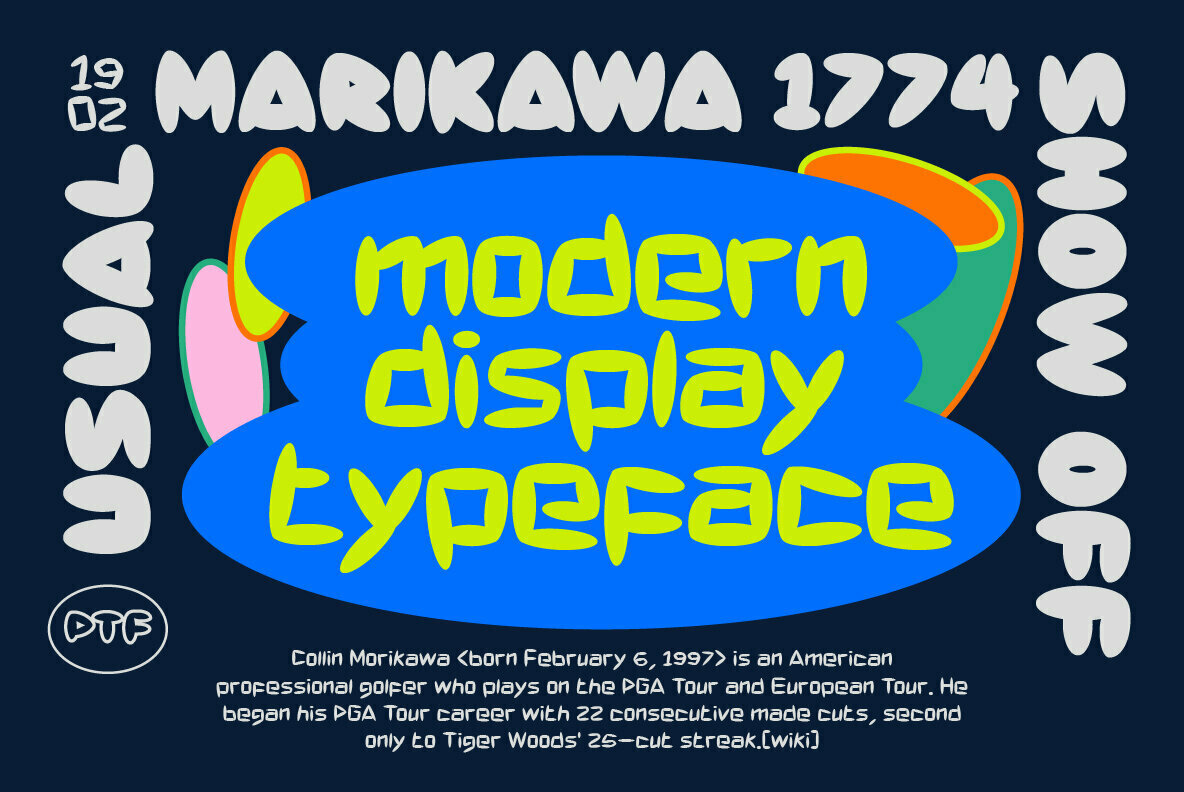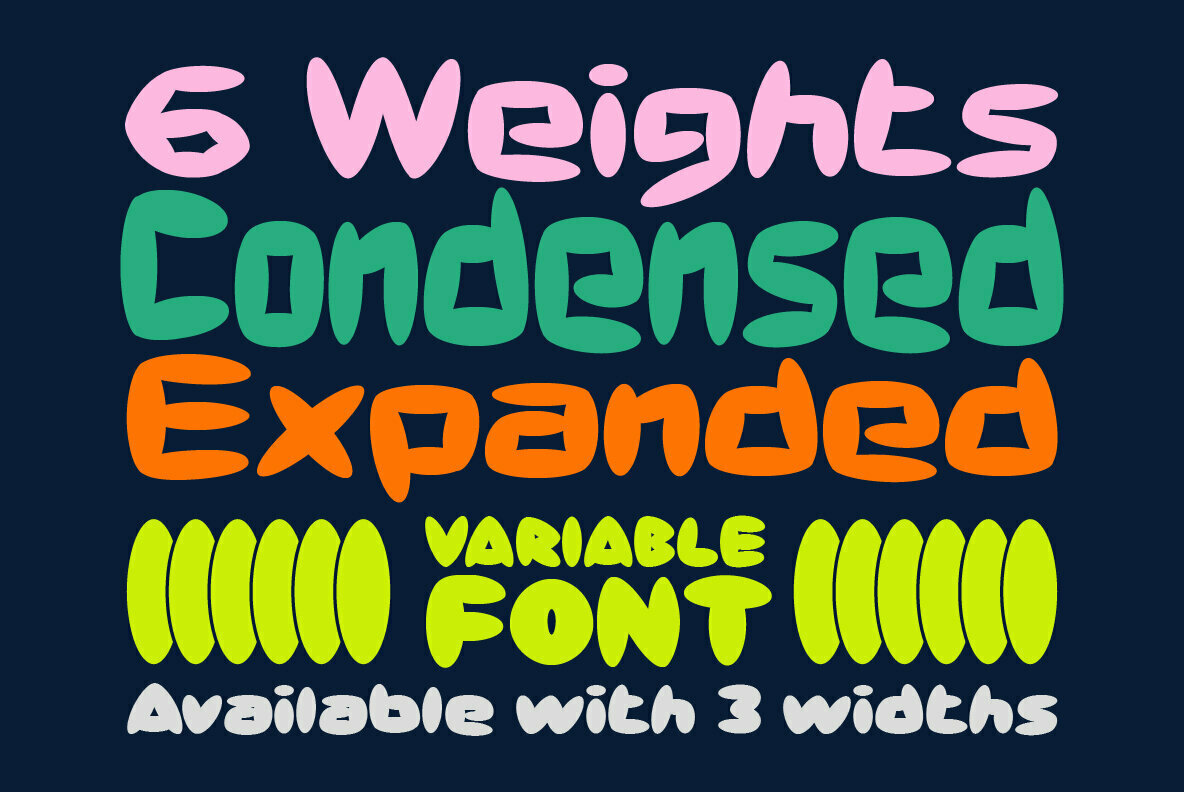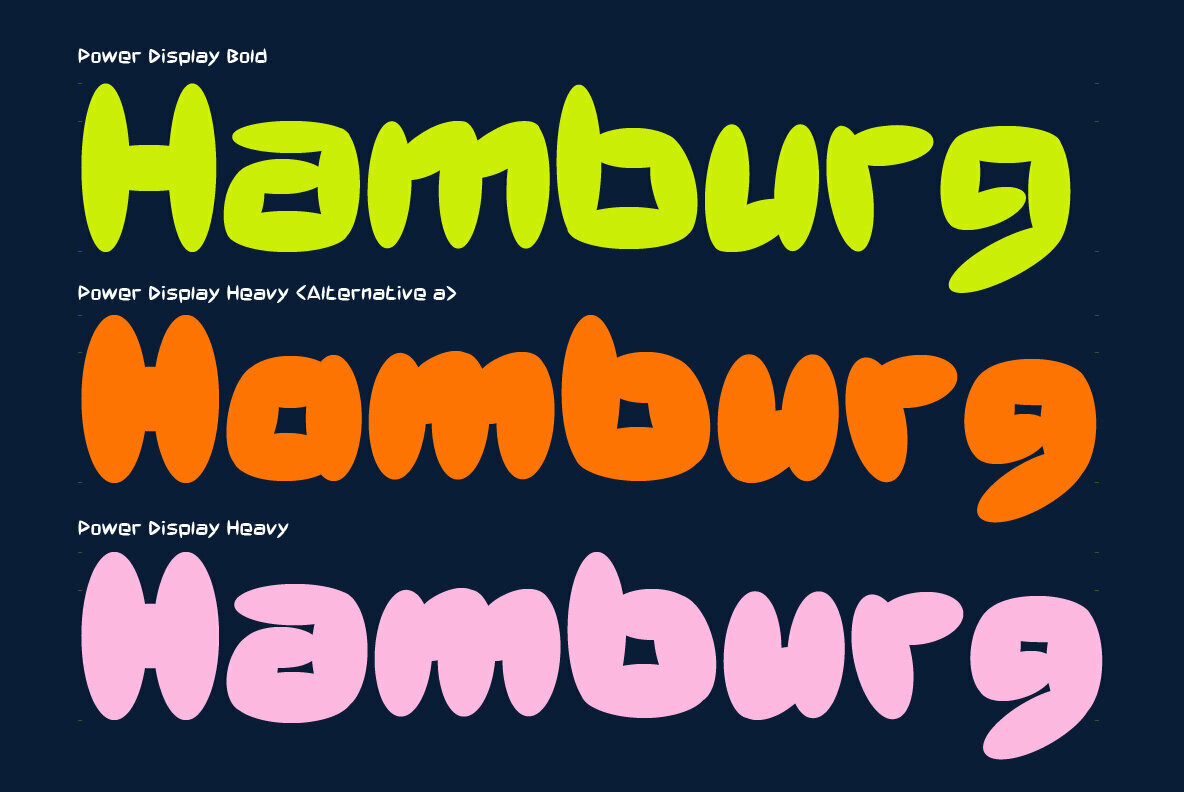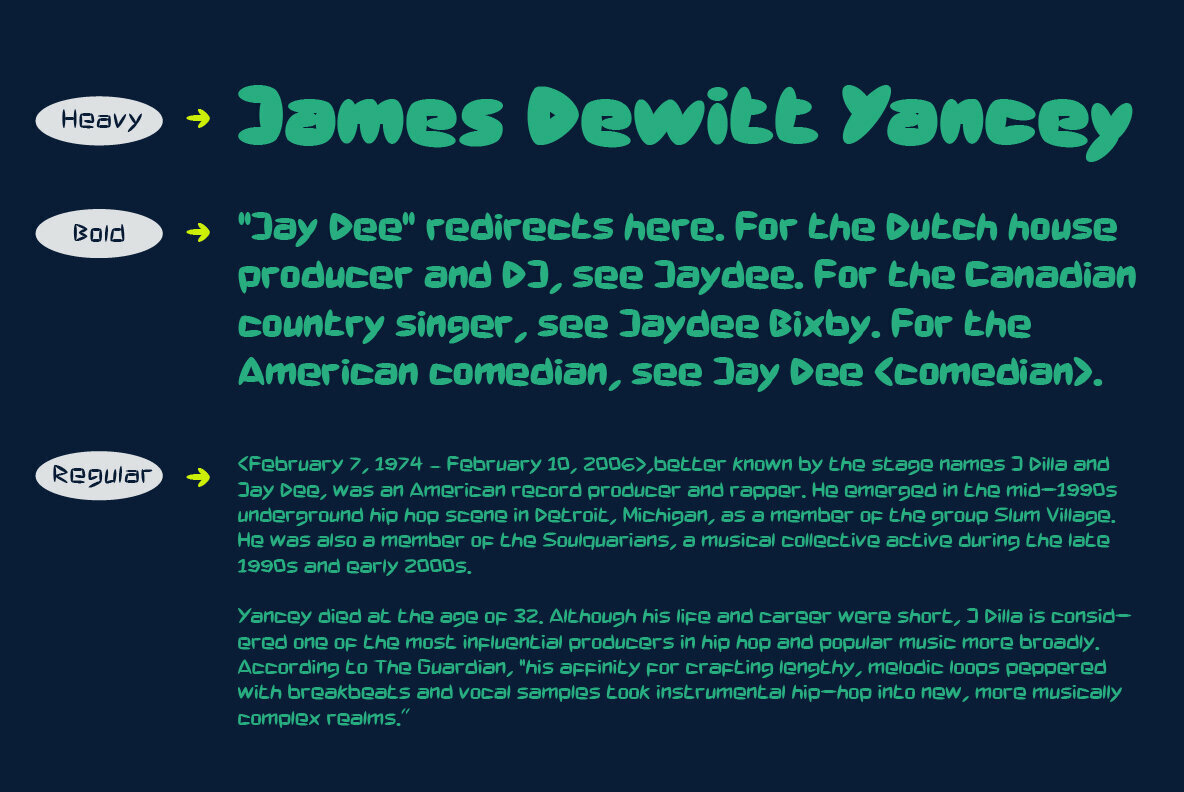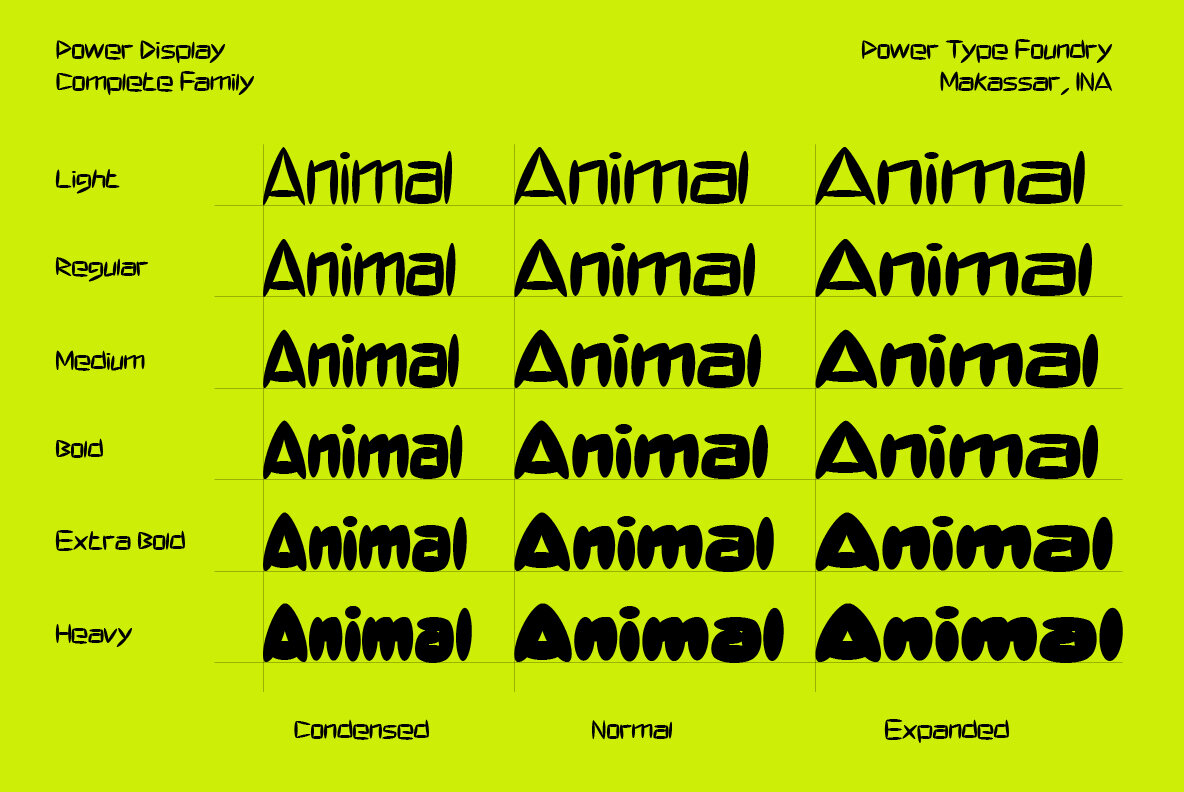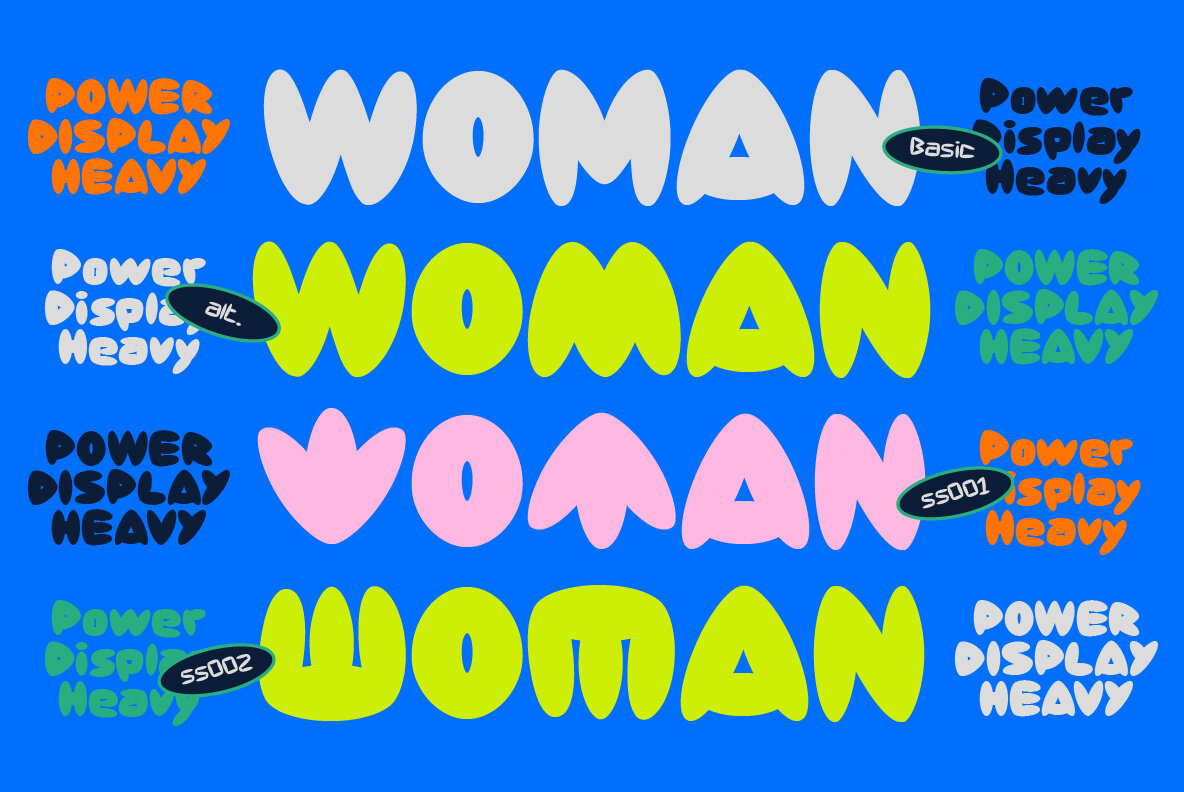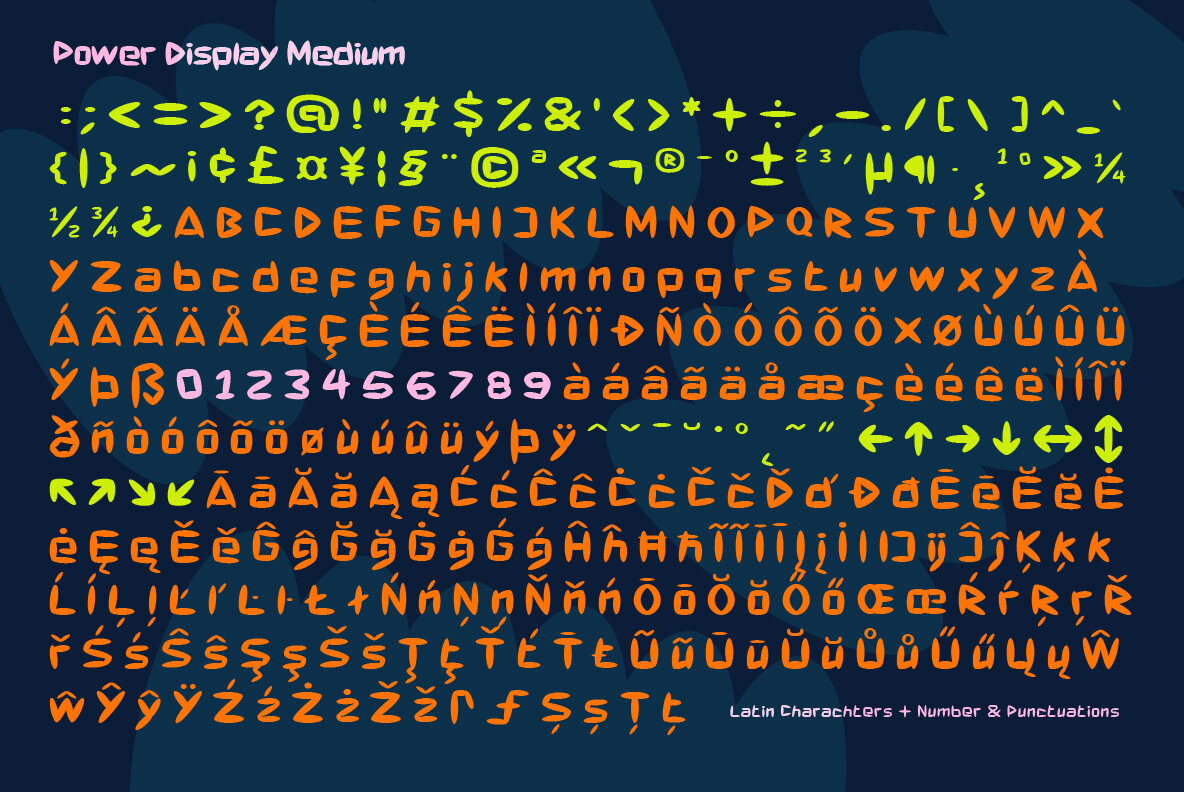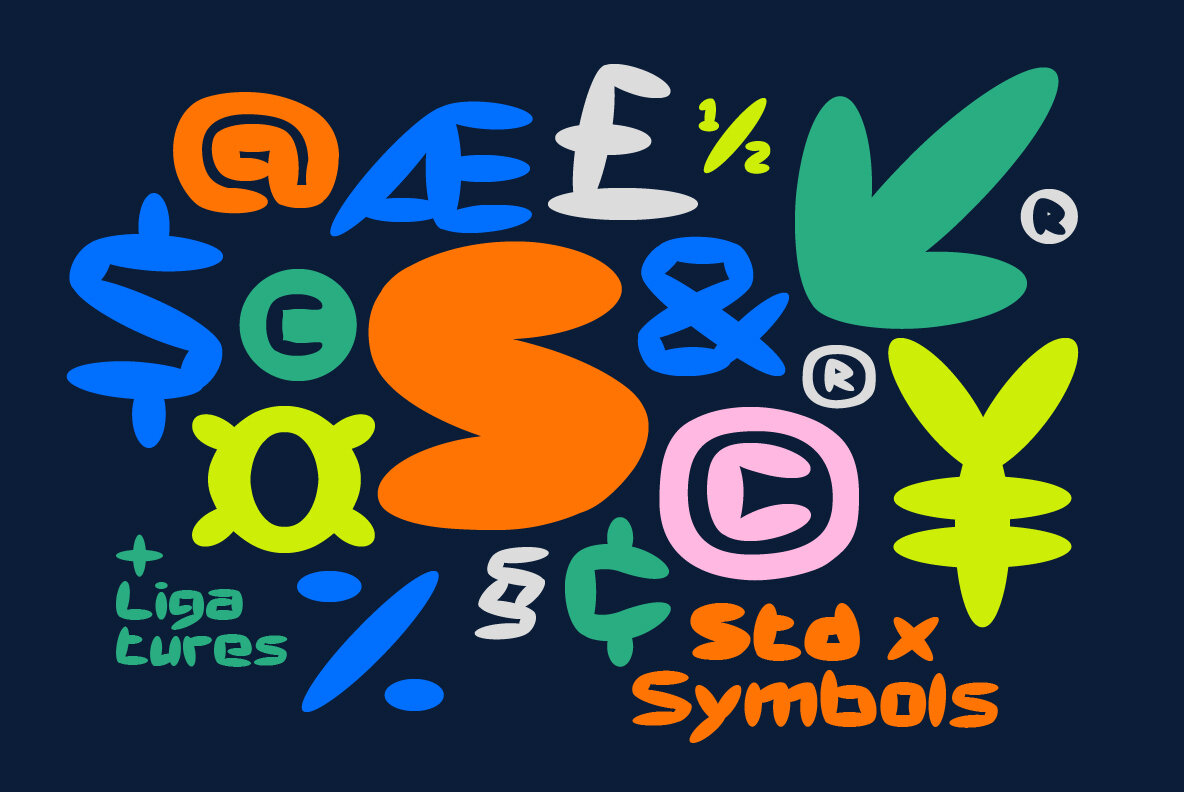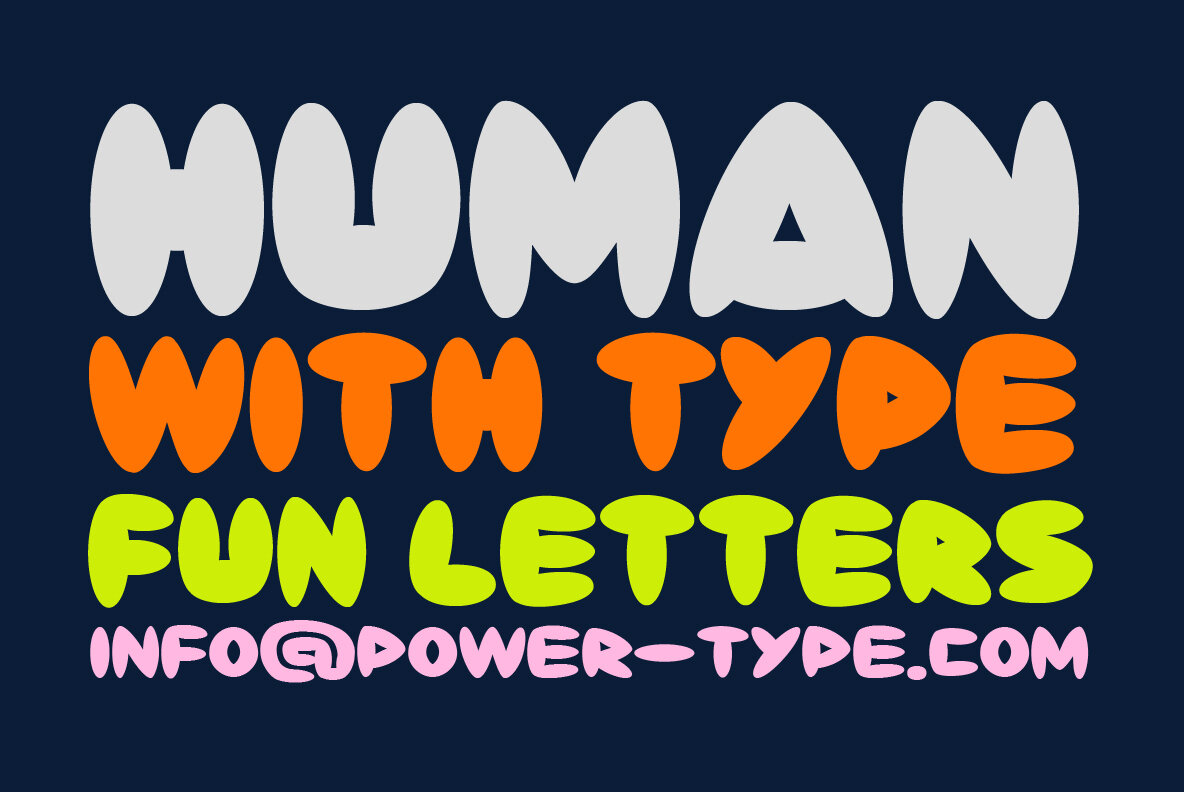
Power Display Font
Power Display is a font that takes its inspiration from the fun, cartoony style of cartoons and combines it with modern trimming for an altogether new look. This playful script comes in three widths: condensed normal or expanded to make sure you can find just what your design needs!